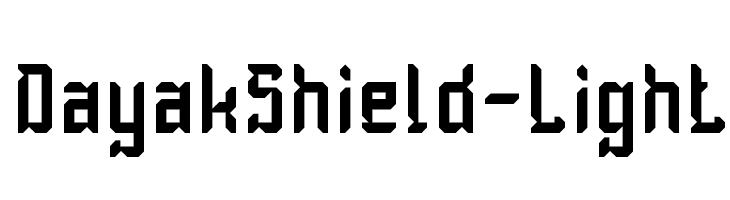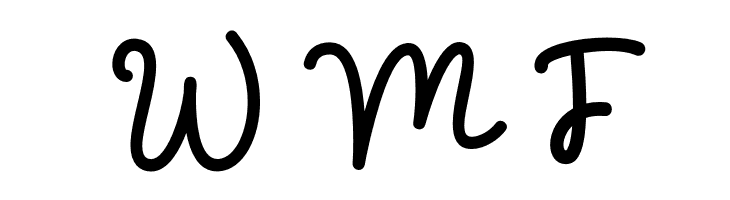
A bold, handwritten font with a dynamic and energetic style.
A bold, cartoonish font with thick outlines and playful character shapes.
A modern, condensed, and italicized font with rounded edges and uniform stroke width.
A bold, playful font with a hand-drawn, artistic style.
A sleek, modern font with a geometric, elongated design and uniform stroke width.
A dynamic and flowing script font with elegant cursive letterforms.
A bold, playful font with a handwritten style and rounded characters.
A modern, bold, italic font with a sleek and compact design.
Handwritten cursive script font.
A bold, three-dimensional font with a shadow effect, ideal for impactful designs.
设计师偏爱 Hey Brothers, KidFromHell, Quota Regular Italic Cond., SHEROO and Skinny Headline Regular,因为其造型干净、适用范围广—— 从品牌识别到落地页、海报都能胜任。